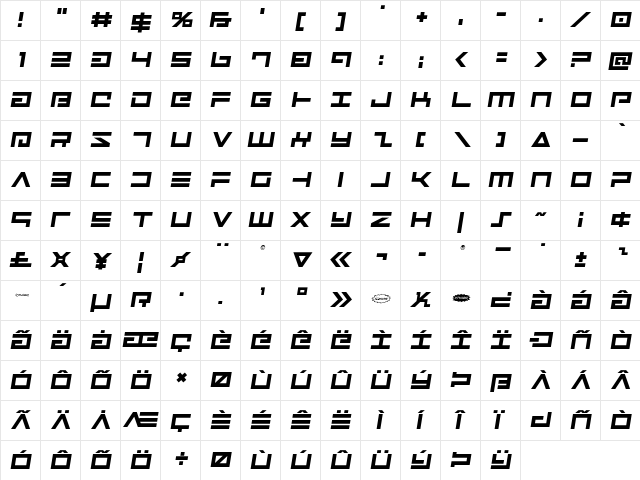
Avenger Semi-Italic Semi-Italic
Design Context for Avenger Semi-Italic Typeface
Avenger Semi-Italic is a composed and adaptable typeface that performs quietly and consistently across a wide range of design contexts. Its italic angle brings a sense of urgency and motion to the letterforms.
Pro Tip: Use Avenger Semi-Italic for emphasis, pull quotes, and subheadings where its slanted energy can add rhythm to the layout.